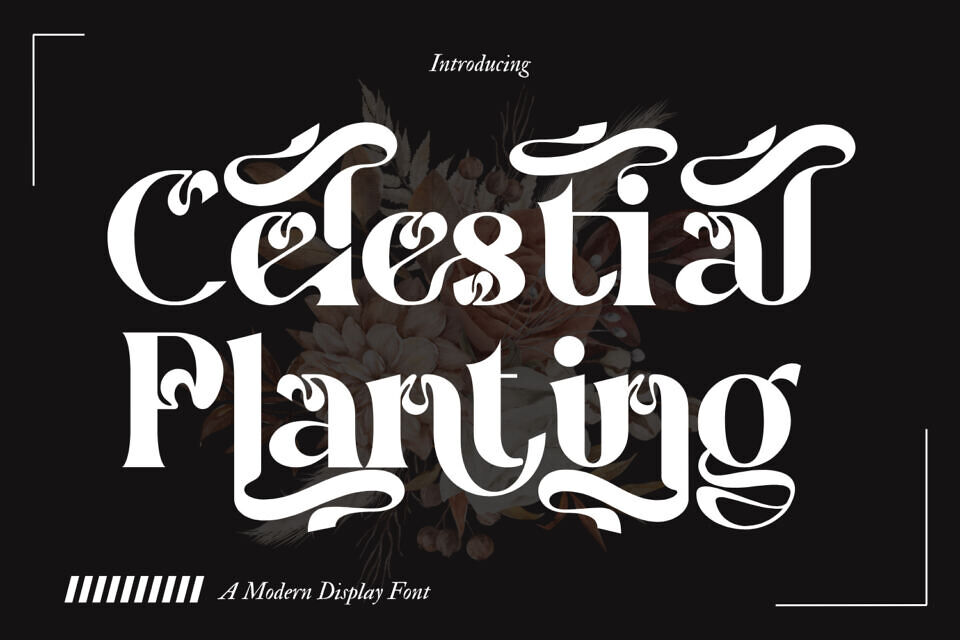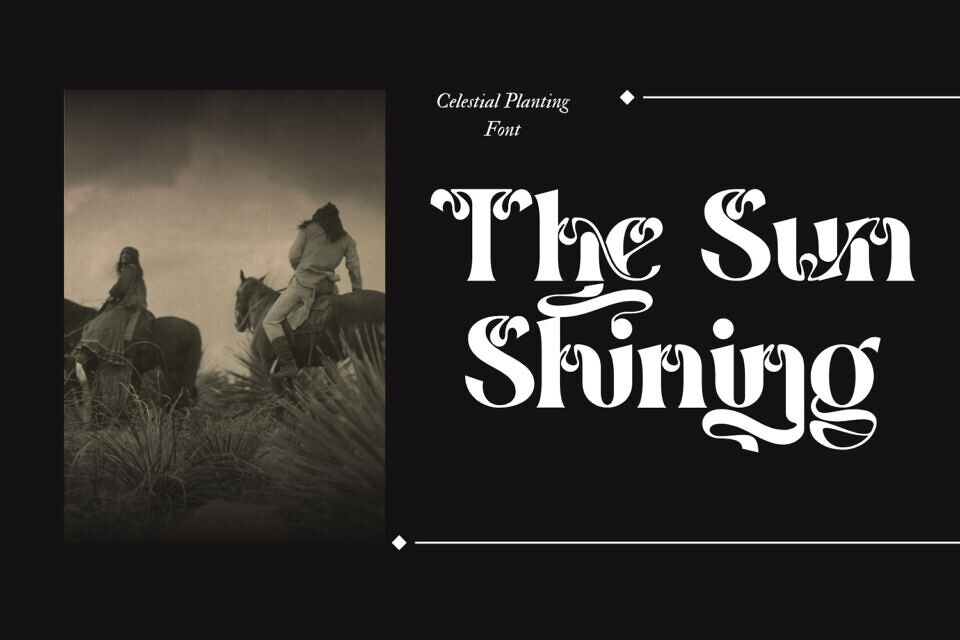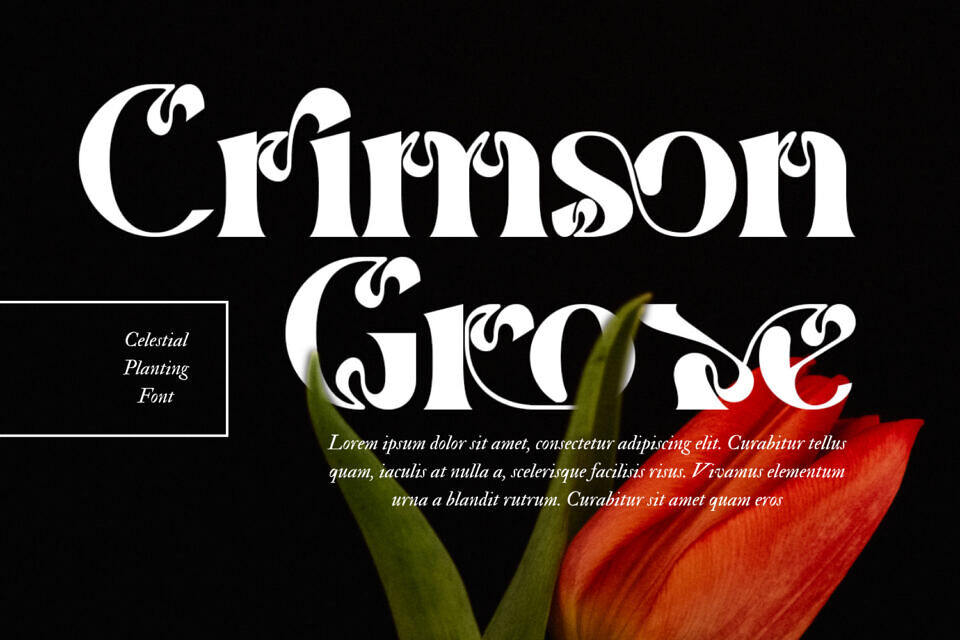
Celestial Planting is a Mystical Modern Psychedelic display Serif that dances between vintage Art Nouveau elegance and bold psychedelic flair. Designed for creators who want their words to feel like art, this font brings a sense of fluid movement and organic beauty to any project.
Celestial Planting is defined by its dramatic high contrast and rhythmic, swirling curves. It is the perfect choice for branding, ethereal poster designs, editorial headlines, and mystical packaging. Whether you are aiming for a “Celestial” aesthetic or a retro-revival look, this font adapts with effortless sophistication.